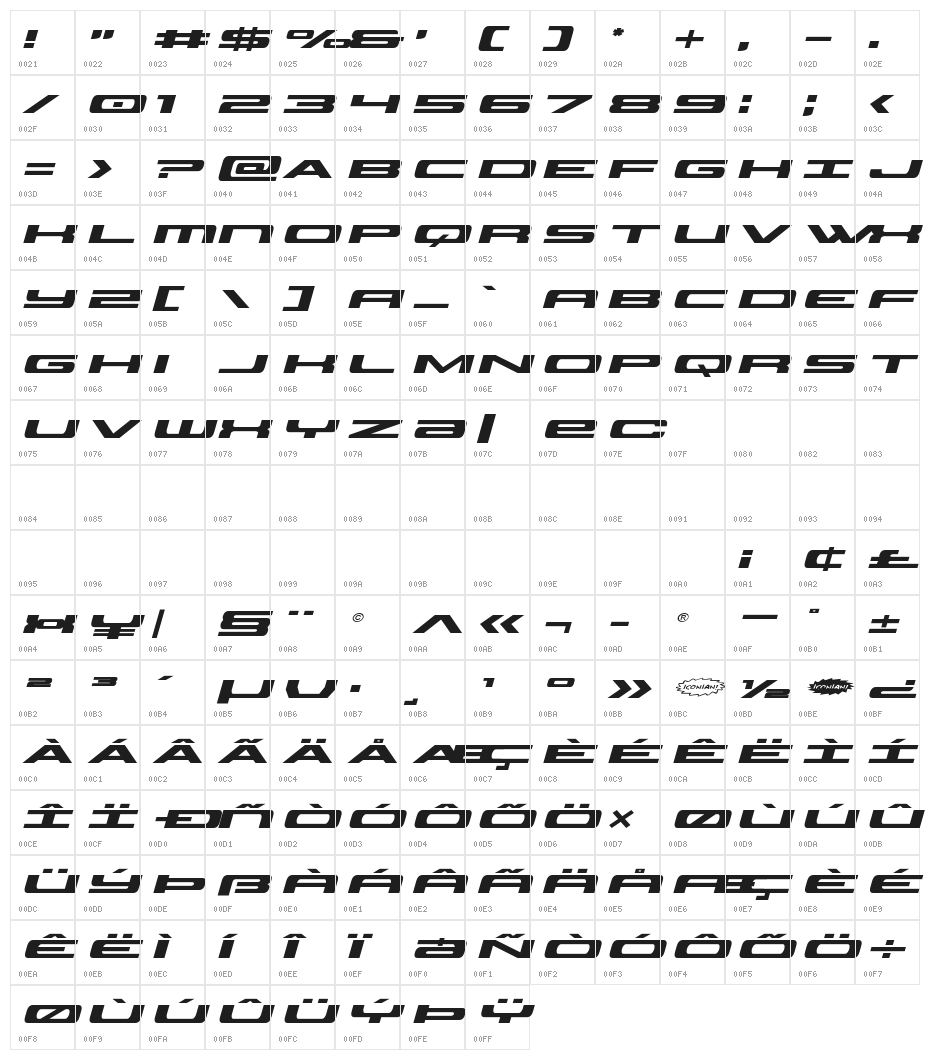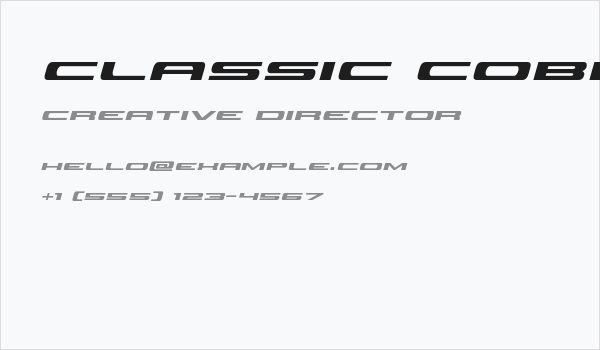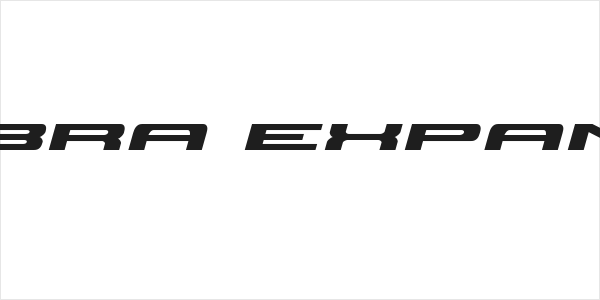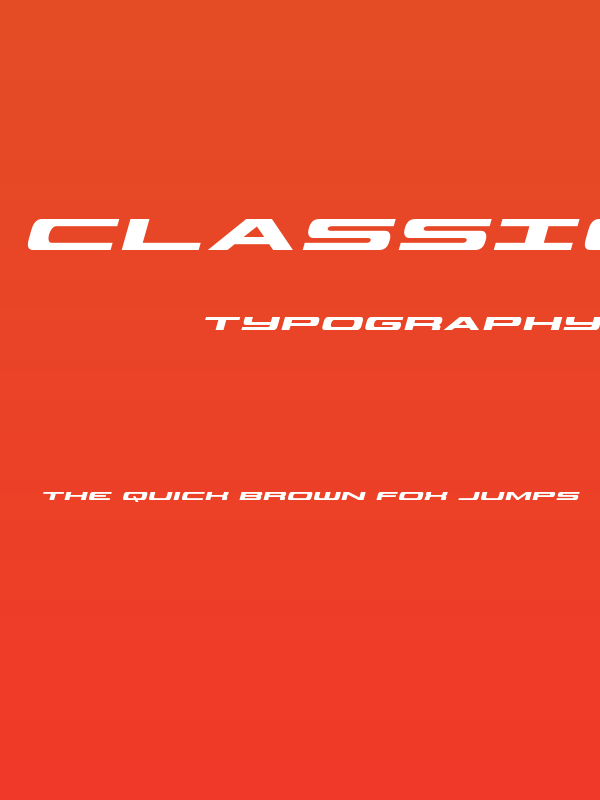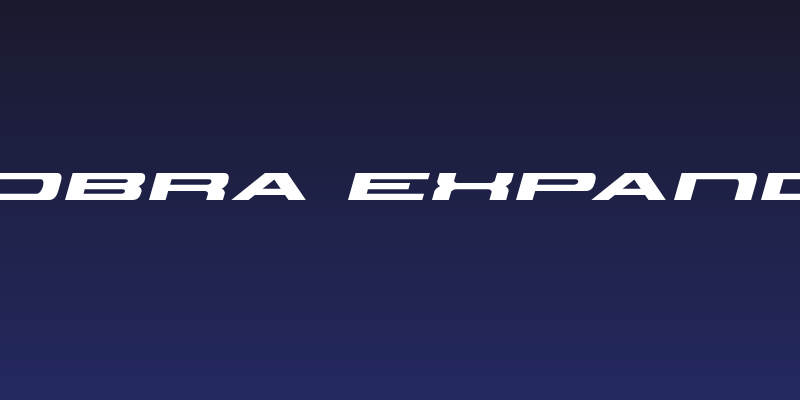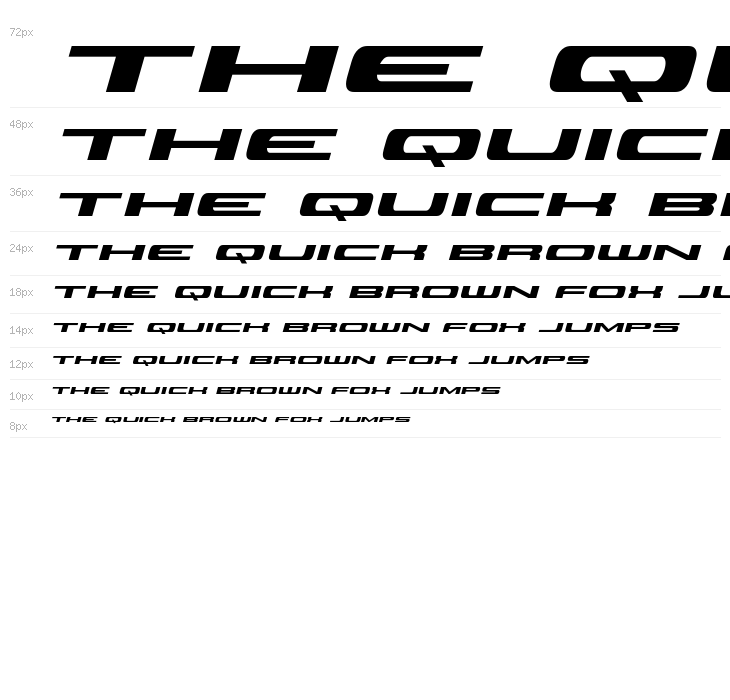
Classic Cobra Expanded Italic Font
Classic Cobra Expanded Italic Description
This font features a bold and dynamic design with an italicized slant, giving it a sense of motion and speed. The characters are expanded, providing a wide stance that enhances readability while maintaining a sleek and modern aesthetic. The strokes are consistent in weight, offering a uniform appearance across all characters. The angular and sharp edges contribute to its futuristic and sporty vibe, making it suitable for projects that require a strong visual impact. The numerals and special characters are designed to match the boldness and style of the alphabet, ensuring a cohesive look throughout.
| Proposed Projects | Ideal for automotive branding, sports team logos, dynamic posters, and tech-related projects. |